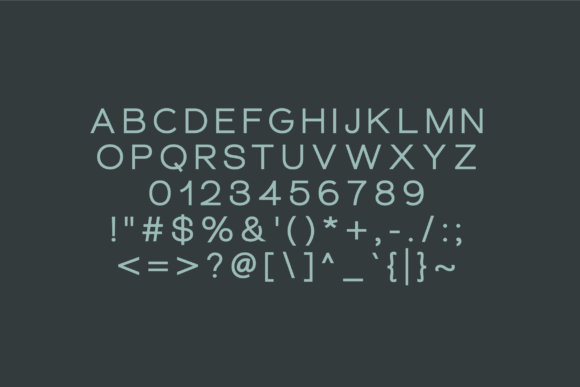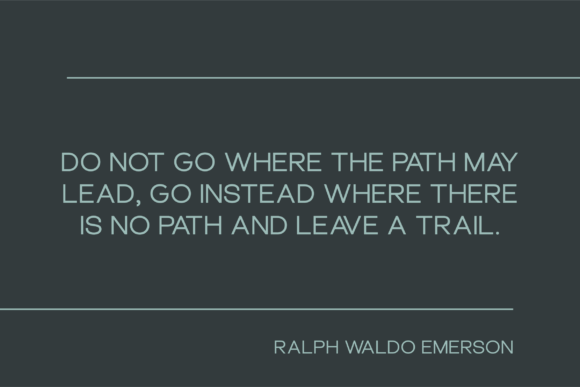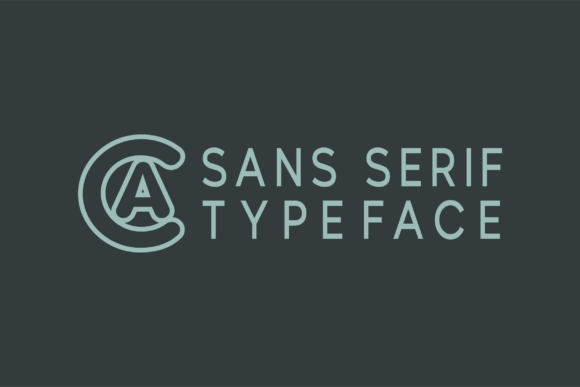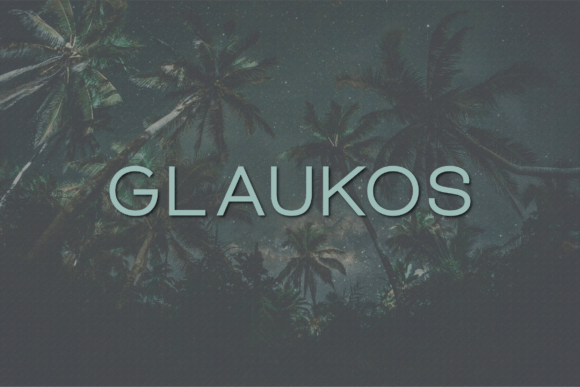
Meet Glaukos: The Epitome of Timeless Elegance in Sans Serif Typefaces
In the vast and ever-evolving world of typography, there exists a font that embodies the essence of timeless elegance and sophistication. Say hello to Glaukos, a sleek and modern sans serif typeface that is meticulously crafted to add a touch of class to any design project. Whether you’re a designer, craftsperson, or simply a typography enthusiast, Glaukos is sure to captivate you with its high-class aesthetic and versatility.
The Design of Glaukos
Glaukos boasts a clean and modern layout, characterized by its sleek lines, precise curves, and harmonious proportions. This font is not just a collection of characters; it’s an experience. With its comprehensive set of upper characters, numbers from 0 to 9, and a wide range of punctuation and symbols, Glaukos offers everything you need to create stunning designs. The attention to detail is evident in every aspect of the font, from the subtle variations in line width to the carefully crafted kerning and spacing.
The Flexibility of Glaukos
What sets Glaukos apart from other typefaces is its incredible flexibility. This font is designed to adapt to a wide range of design applications, making it the perfect choice for creative projects that demand excellence. Whether you’re working on a wedding invitation, logo design, quote, or advertising content, Glaukos adds a touch of finesse that elevates your design to the next level. Its versatility extends to print media, magazines, and digital platforms, ensuring that your design looks stunning across various mediums.
Applications of Glaukos
Glaukos is an incredibly versatile font that can be used in a multitude of design projects. Here are some ideas to get you started:
- Wedding Invitations: Add a touch of elegance to your wedding invitations with Glaukos. Its sophisticated aesthetic sets the tone for a memorable and stylish celebration.
- Logo Design: Create a lasting impression with a logo designed using Glaukos. Its modern and sleek lines make it perfect for businesses that want to convey a sense of professionalism and style.
- Quotes and Typography: Use Glaukos to create visually stunning quotes and typographic designs. Its clean lines and precise curves make it ideal for showcasing inspirational quotes, lyrics, or poems.
- Advertising and Print Media: Glaukos is perfect for designing advertisements, brochures, and magazine layouts. Its high-class aesthetic ensures that your content stands out in a crowded market.
Why Choose Glaukos?
With so many typefaces available, why choose Glaukos? Here are a few compelling reasons:
- Timeless Elegance: Glaukos embodies the essence of timeless elegance, making it perfect for designs that require a touch of sophistication.
- Flexibility: Glaukos is incredibly versatile, making it suitable for a wide range of design applications.
- High-Class Aesthetic: Glaukos features a high-class aesthetic that ensures your design stands out in style.
- Attention to Detail: The font is meticulously crafted with attention to detail, ensuring that every aspect of the design is perfect.
In conclusion, Glaukos is a typeface that embodies the essence of timeless elegance and sophistication. Its sleek and modern design, comprehensive character set, and flexibility make it the perfect choice for designers and craftspersons who demand creative excellence. Whether you’re working on a wedding invitation, logo design, or advertising content, Glaukos adds a touch of finesse that elevates your design to the next level. So why settle for ordinary when you can have extraordinary? Choose Glaukos for your next design project and experience the power of timeless elegance.